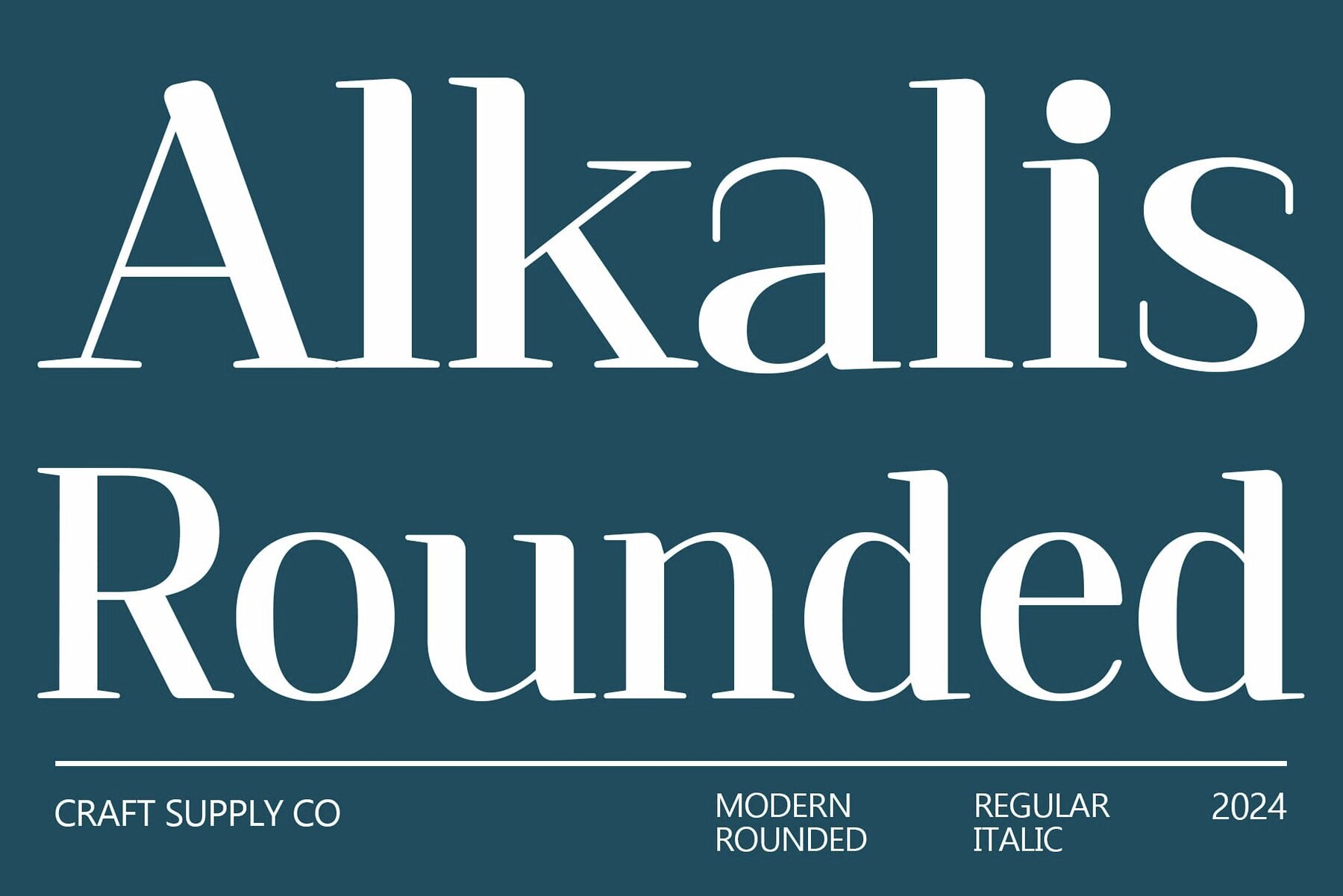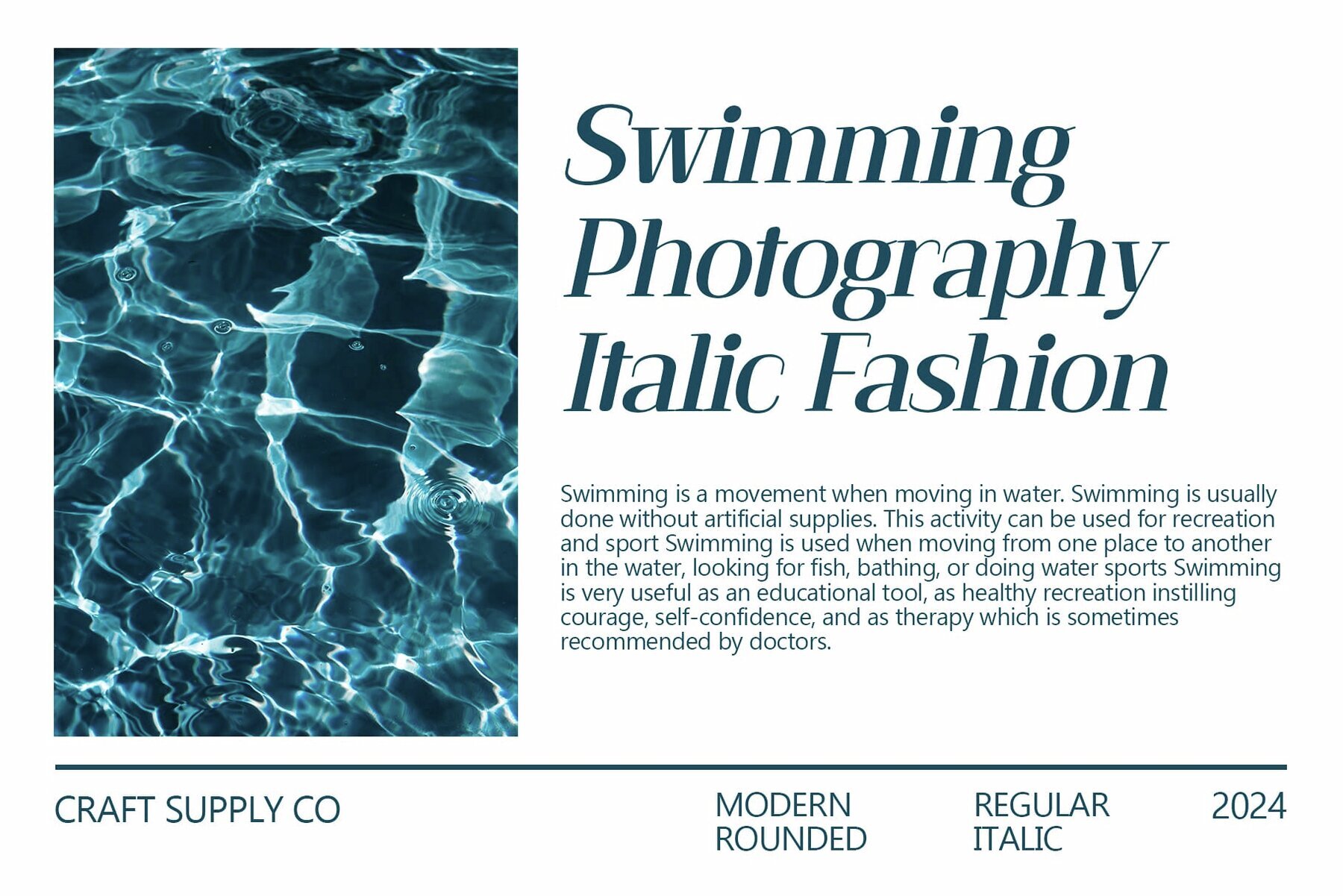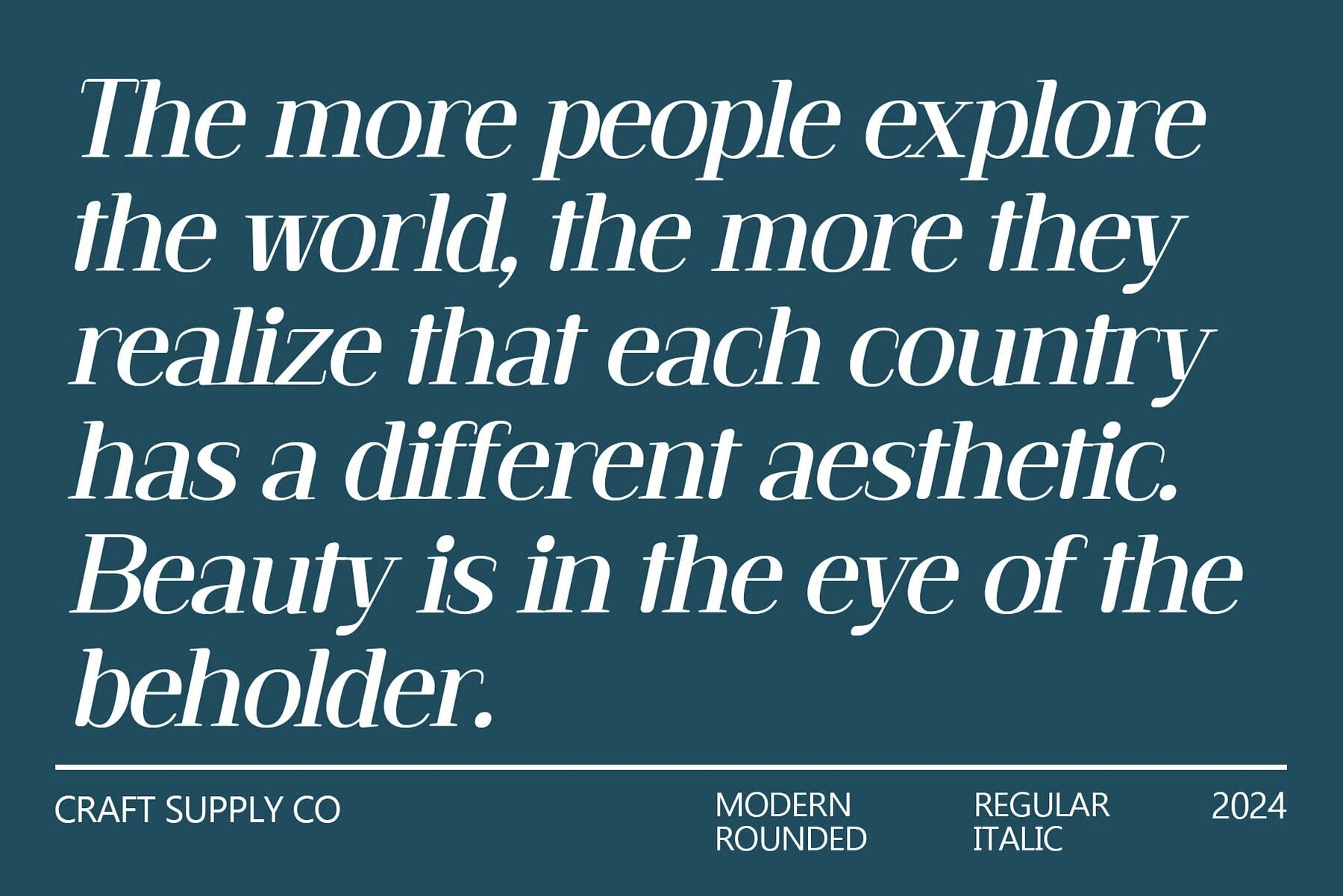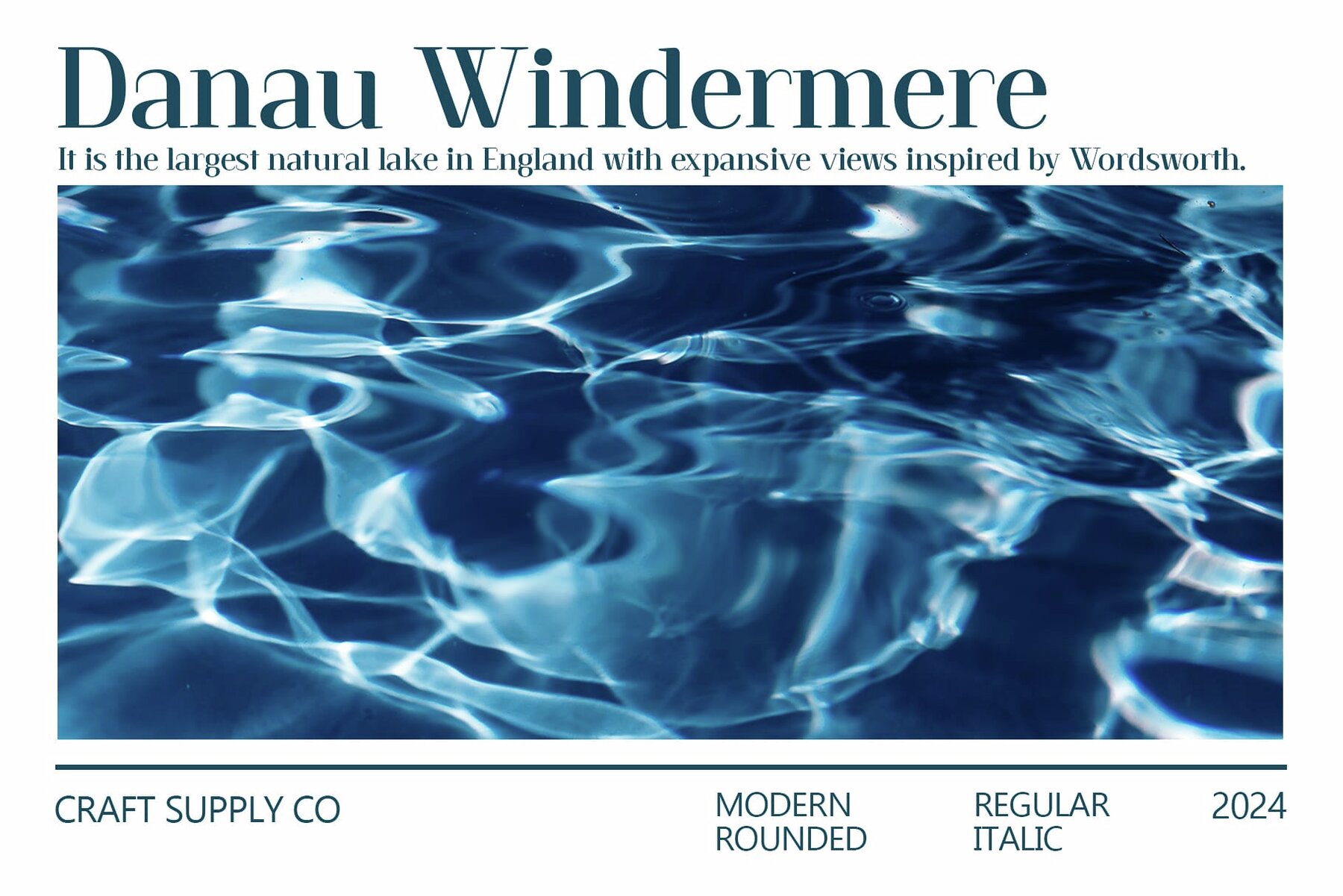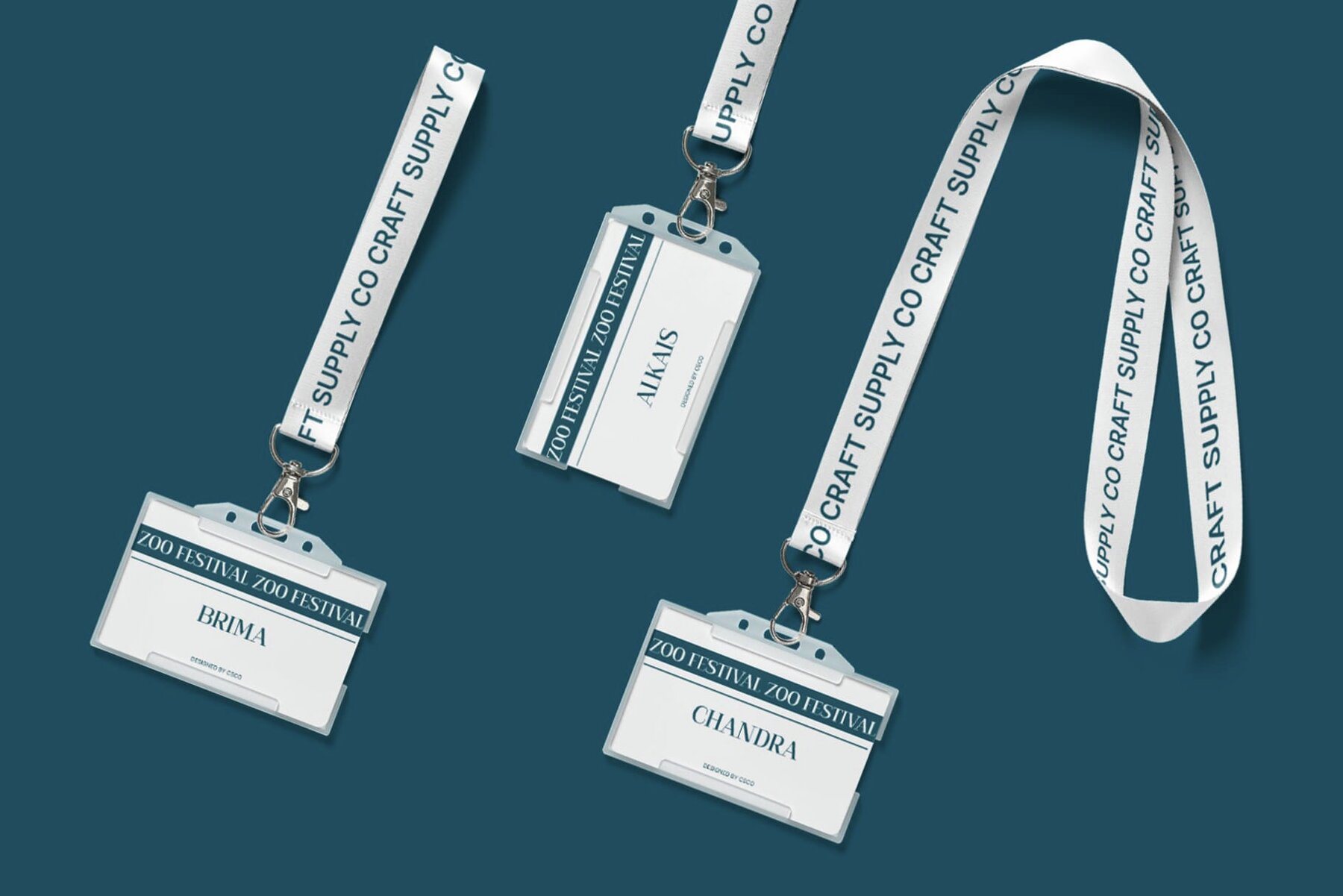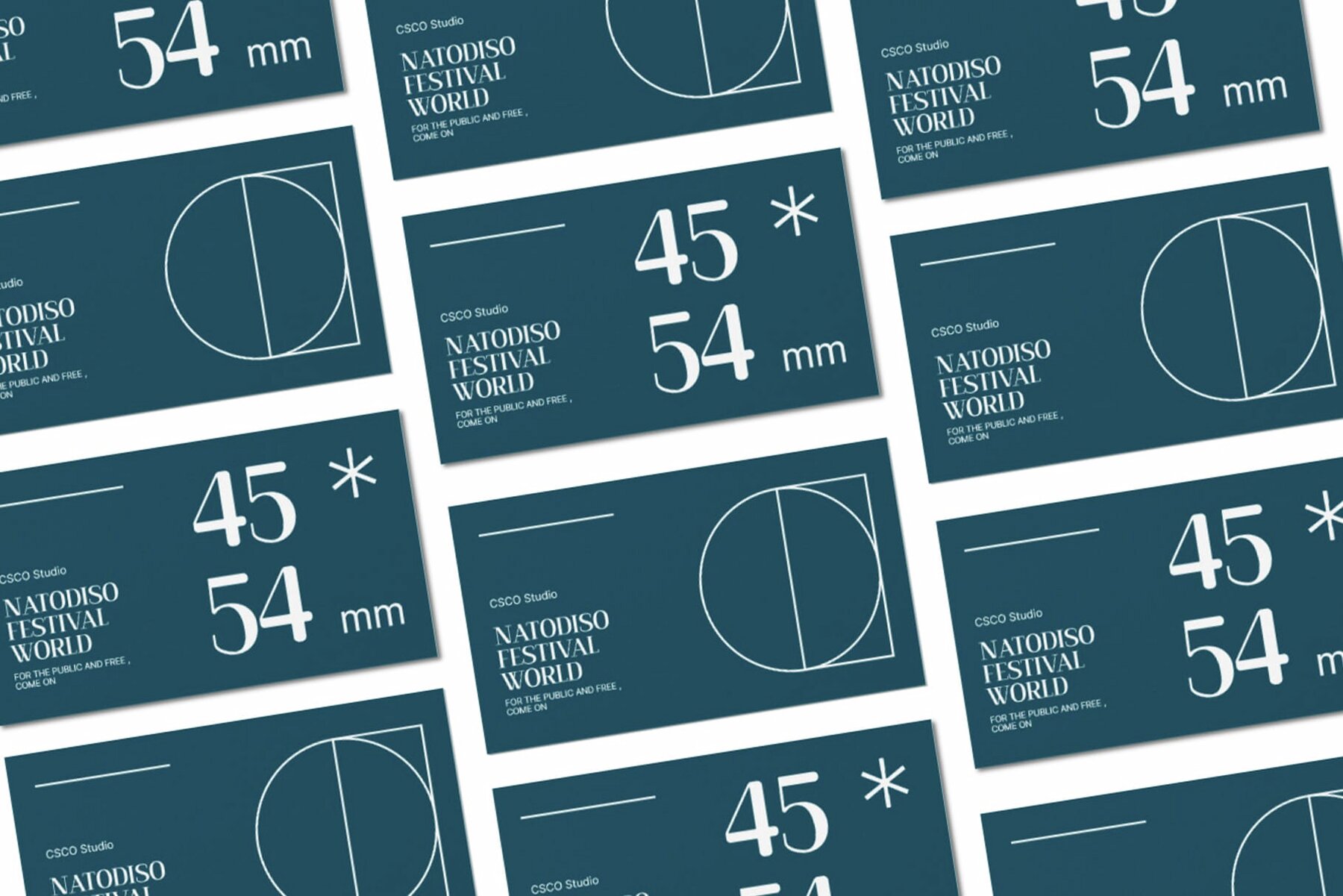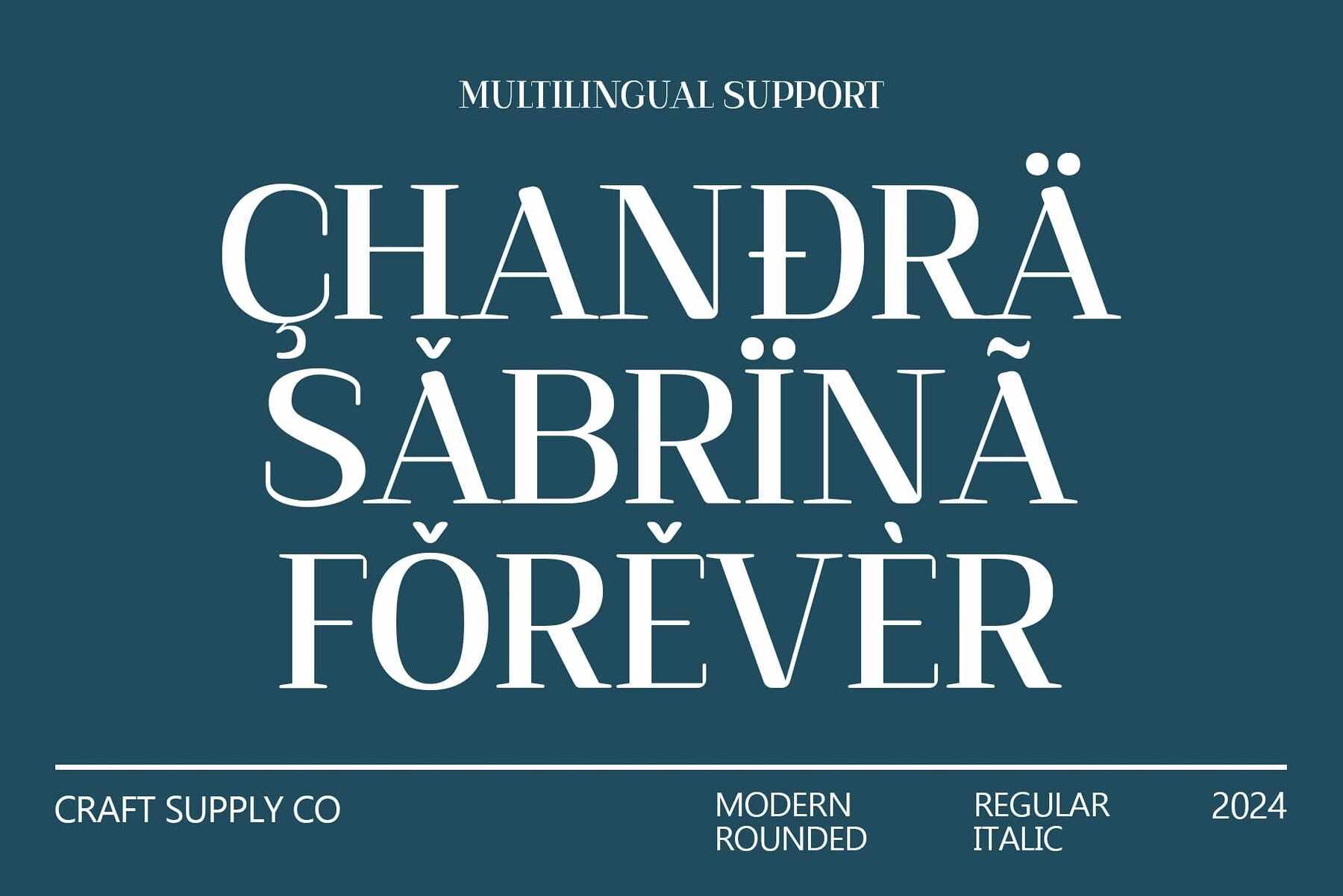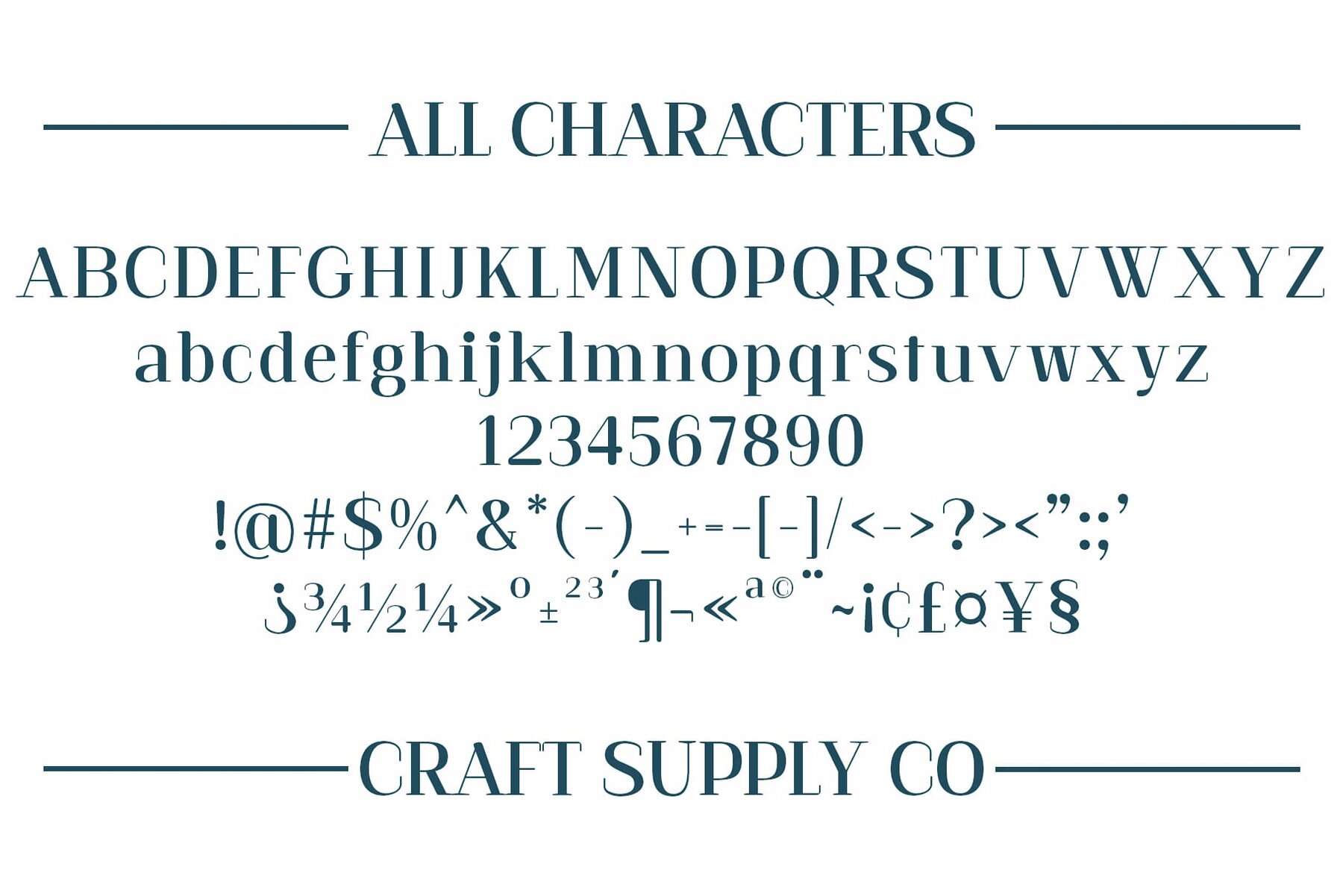
Alkalis Rounded Font
Alkalis Rounded is a versatile serif font featuring high-contrast characters and softly rounded edges. Its elegant design is suitable for various projects, making it an ideal choice for both digital and print media. The font boasts refined softness from its rounded serifs while maintaining contrast for sophistication.
Key Features:
- High contrast, rounded-edge serif font
- Versatile design suitable for digital and print applications
- Soft, elegant look with a modern twist
- Alkalis Rounded Regular
- Alkalis Rounded Italic
- Uppercase and lowercase characters
- Numerals and punctuation (OpenType Standard)
- Accents for multilingual characters